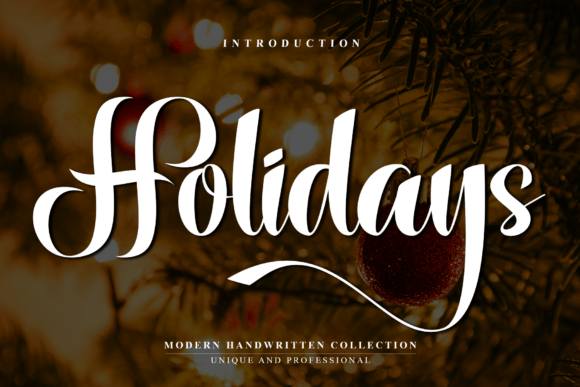
Unwrapping the Magic of the Holidays Font
It’s that time of year again when the world is bathed in twinkling lights, and the air is filled with the scent of freshly baked cookies. As designers, we’re often tasked with capturing the essence of these joyous moments in our work. And what better way to do so than with a font that embodies the spirit of celebration?
Enter the Holidays Font, a modern script that radiates charm and sophistication. With its flowing curves and elegant letterforms, this font is the perfect tool for designers looking to add a touch of refinement to their holiday-themed projects. Whether it’s a festive greeting card, a holiday menu, or a seasonal advertising campaign, the Holidays Font is sure to make a lasting impression.
As designers, we know that the right font can make all the difference in conveying a message or evoking a mood. And with its high contrast between thick downstrokes and thin upstrokes, the Holidays Font is a valuable addition to any designer’s toolkit.
- Unique Characteristics: Holidays Font features a unique blend of traditional and modern calligraphy, with intricate details and ornaments that evoke a festive atmosphere.
Holidays Font Review
I’ve had the chance to work with the Holidays Font, and overall, I think it’s a great choice for a specific use case. ✨ The font is playful, fun, and perfect for projects that need a bit of a festive touch. It’s a great choice for holiday-themed websites, social media graphics, or even advertising campaigns.
The Holidays Font is a bit on the heavier side, which can be a good thing for creating a bold and eye-catching design. The font is also highly legible, even at smaller font sizes, which is a must for any font.
- Playful and fun design
- Perfect for holiday-themed projects
- Highly legible, even at smaller font sizes
- May not be suitable for formal or professional projects
- Can be a bit too playful for certain audiences
- May not be the best choice for projects that require a lot of text
Overall, I think the Holidays Font is a great choice for projects that need a bit of a festive touch. However, it may not be the best choice for every project. If you’re looking for a fun and playful font, the Holidays Font is definitely worth considering.
Use the Holidays Font to add a festive touch to your designs, especially during holidays and special occasions. Experiment with different font sizes, colors, and styles to create a unique look.
The Holidays Font is perfect for:
- Christmas and New Year’s Eve designs.
- Thanksgiving and Halloween decorations.
- Wedding invitations and party invitations.
- Seasonal greeting cards and postcards.
Alternatives to Holidays Font
Cream Soda is a beautiful script font ideal for creating a warm, nostalgic, and vintage feel. It’s perfect for designing invitations, menus, and other materials that require a soft, elegant look. Compared to Holidays Font, Cream Soda has a more relaxed and casual vibe, making it suitable for everyday use.
Great Vibes is a modern script font that exudes a sense of freedom and adventure. It’s perfect for designing travel brochures, event promotions, and other materials that require a fun and energetic feel. Compared to Holidays Font, Great Vibes has a more dynamic and playful personality, making it ideal for creative projects.